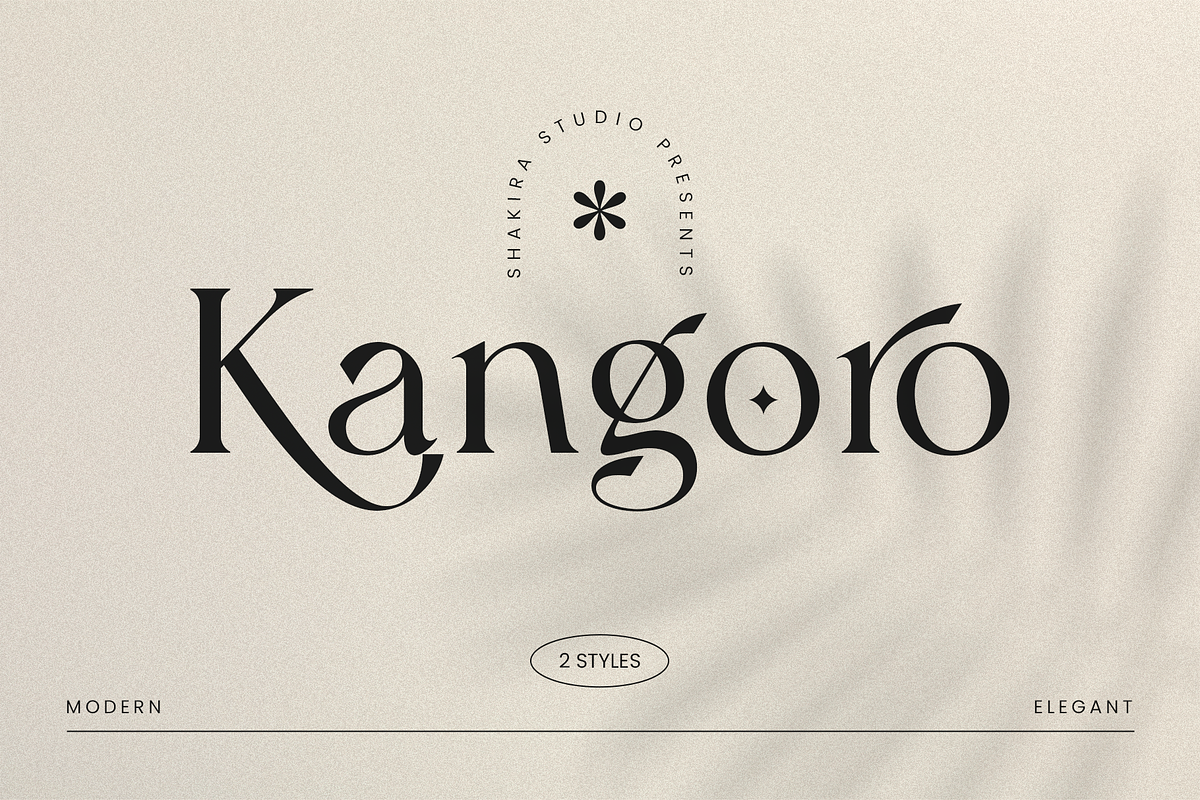
Kangoro - Modern Luxury Serif Font Free Download
Kangoro - Modern Luxury Serif Font Free Download is an elegant and high-end typeface designed to convey sophistication, style, and professionalism. With its sharp serifs, balanced contrast, and refined curves, Kangoro is perfect for fashion branding, upscale packaging, editorial design, wedding invitations, and luxury logos.
This font blends timeless serif tradition with modern design sensibilities, making it both classic and contemporary. Its graceful presence works beautifully in headlines, logos, and other display uses where you want to leave a lasting impression.